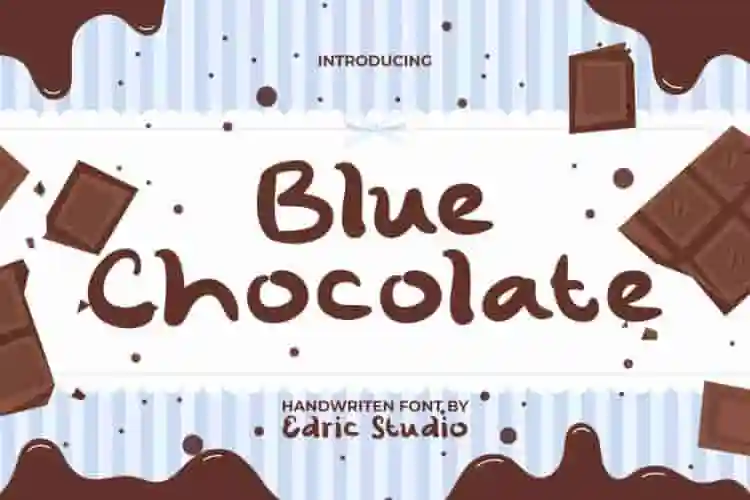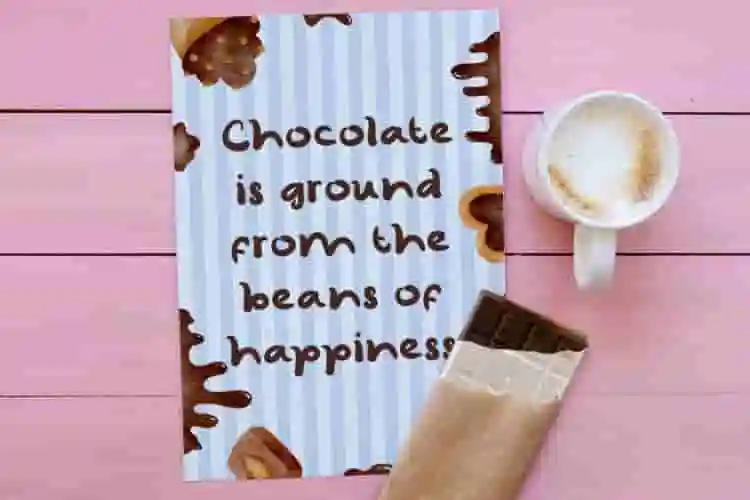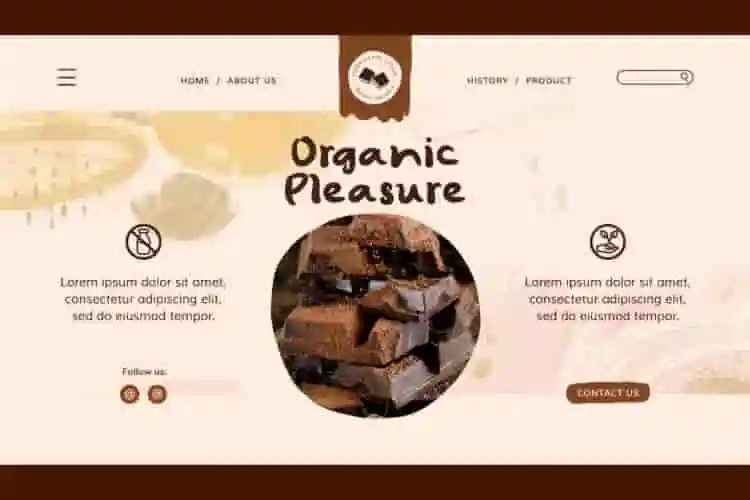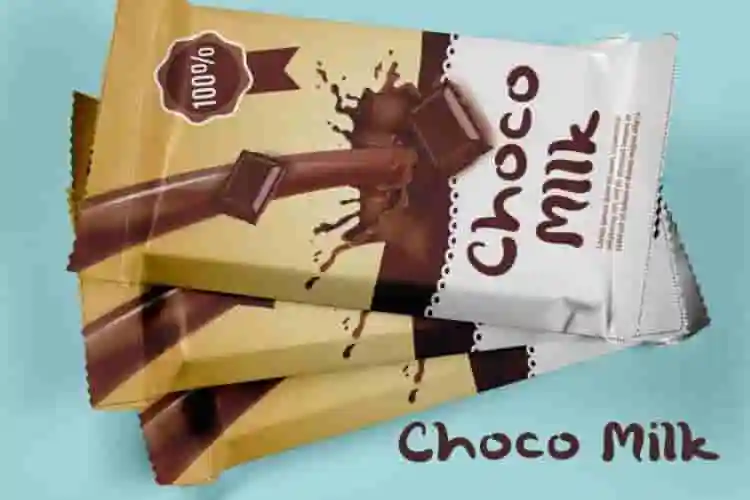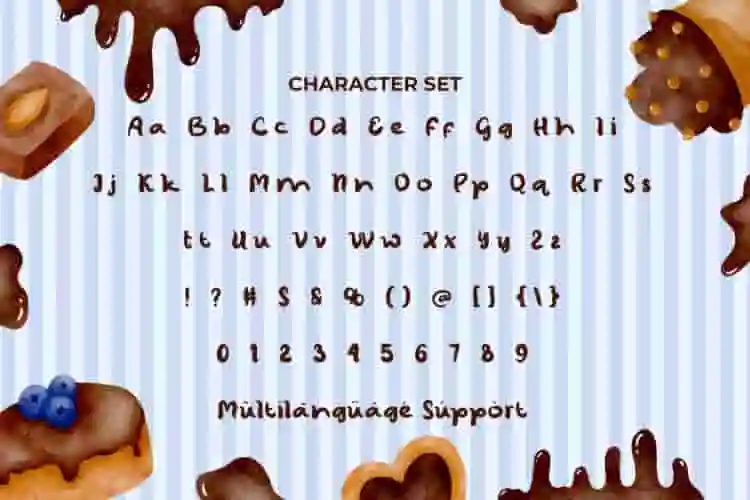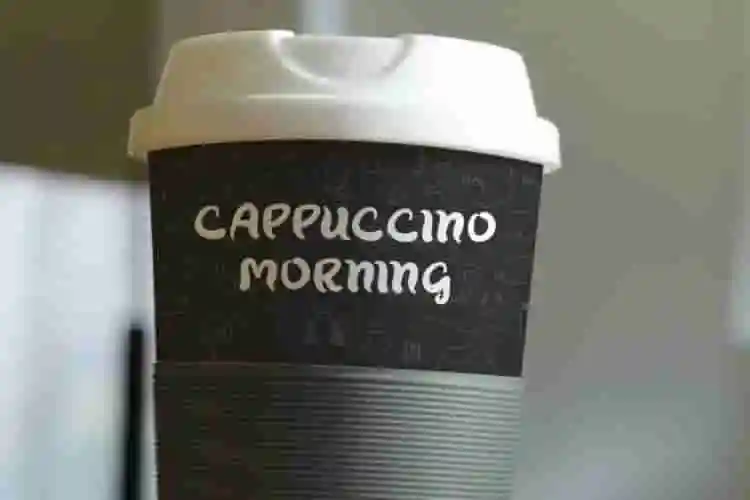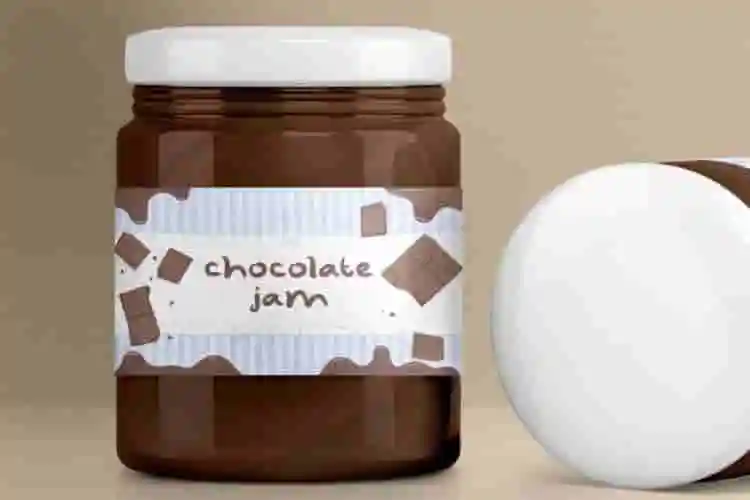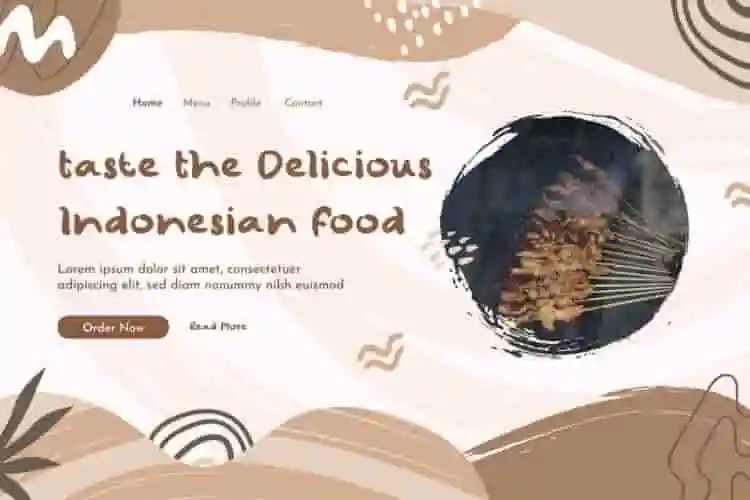
Blue Chocolate Font is a cute handwritten font that lifts the concept around the sweetest thing. It’s a fun typography with a unique brush style that will make a sweet splash with your designs, such as apps, billboard, blog, branding, cover, header, logos, packaging design, poster, product labels, screen print, shirt, signs, stationery, sticker, title, website, word marks, and more.
Blue Chocolate Font comes with a full set of Uppercase and Lowercase Basic Characters, Number, Punctuation and Symbol. It is optimal for displays that require a beautiful bubbly typeface, can be geared towards industries such as ads, animation, café, chocolate manufacturer, comic, content creator, culinary, event or festival, fashion, film, graphic design, handicraft, homeware, movie, photography, playground, printing, publishing, retail, snacks, travel, vacation, and anything that needs a touch of adorable fonts.
Say hello to Blue Chocolate, a smooth and charming handwriting font that feels personal, cozy, and effortlessly stylish. Inspired by handwritten notes and soft moments, this font adds a gentle, human touch to every project.
Introducing Blue Chocolate, a delightful handwriting font with a casual, sweet, and stylish touch. Designed to look like effortless penmanship, this font brings warmth and personality to every design—just like a handwritten note from a friend.
Meet Blue Chocolate, a cute and quirky handwriting font made for creatives who love everything soft, sweet, and a little playful. With its smooth curves and handwritten flow, this font is perfect for adding a touch of fun and personality to your designs.
- Soft & Smooth Letters
Blue Chocolate Font also supports multilingual characters which are ready to use either on Windows or Mac machines with a simple installation. You can use alternative glyphs such as the swoosh character option which you can select and use to create a different look for your design. It’s tested to work well in the Adobe Apps (Illustrator, Adobe InDesign, Adobe Photoshop) even work on Microsoft Word. All of these characters are available through the glyph panel, moreover each letter has its own unicode (PUA) so you can access all the characters easily.